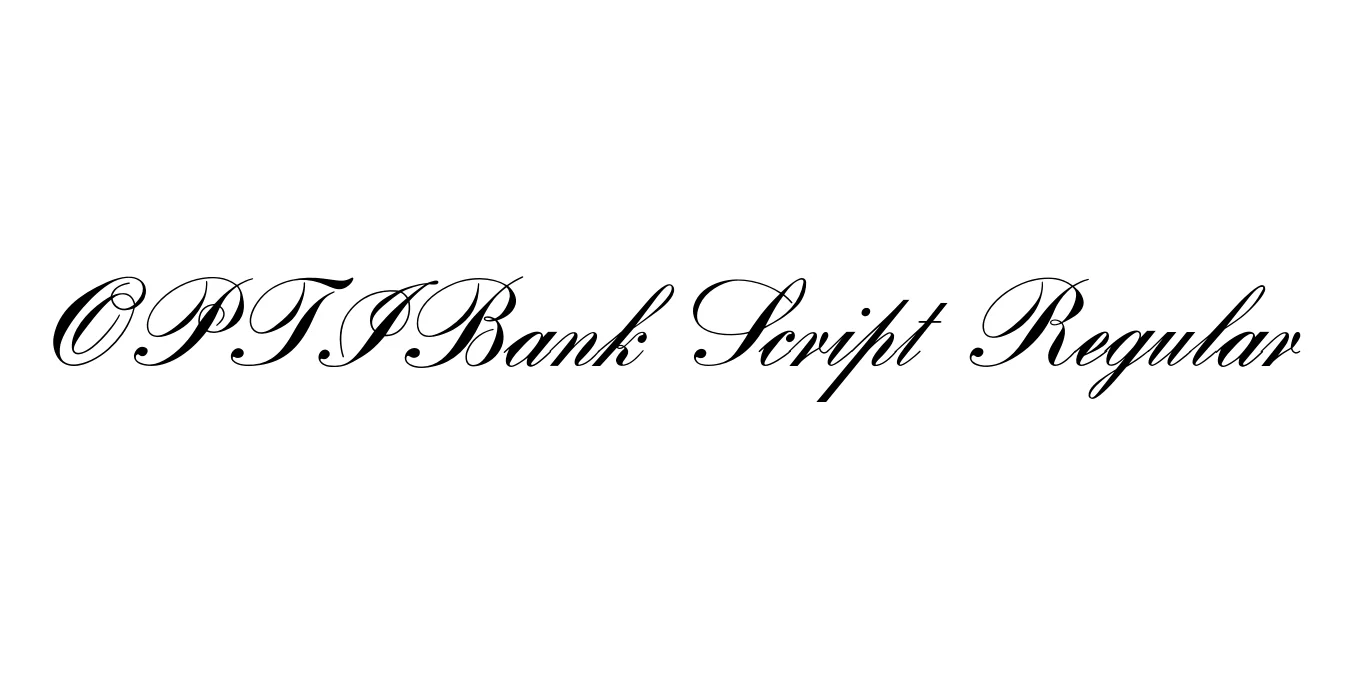
OPTIBank Script Regular
Designed by Morris Fuller Benton (Castcraft Digitization)
| Category | Formal Script |
| Designer | Morris Fuller Benton (Castcraft Digitization) |
OPTIBank Script Regular traces its lineage back to the formal copperplate calligraphy of the early 20th century, specifically modeled after Morris Fuller Benton’s 1933 design for the American Type Founders (ATF). Digitized by Castcraft as part of their comprehensive OPTI font collection, this typeface preserves the aristocratic elegance of hand-engraved invitations. It represents a bridge between the rigid structure of 19th-century Spencerian scripts and the modernized cleanliness required for mid-century commercial printing.
Technically, the font exhibits a high-contrast stroke weight and a steep slant that emphasizes its kinetic energy. The x-height is notably low relative to the elongated, looping ascenders and descenders, which necessitates generous line spacing to prevent overlapping flourishes. The connections between glyphs are executed with mathematical precision, maintaining a rhythmic flow that mimics the pressure-sensitive strokes of a pointed pen. While legibility is maintained in display sizes, the delicate hairlines require high-resolution environments to avoid visual artifacts in digital rendering.
OPTIBank Script Regular Best Uses
Ideal for wedding invitations and high-end gala programs.
Perfect for logos in the perfume, jewelry, or premium spirits industry.
Adds a sophisticated personal touch to digital business cards and certificates.